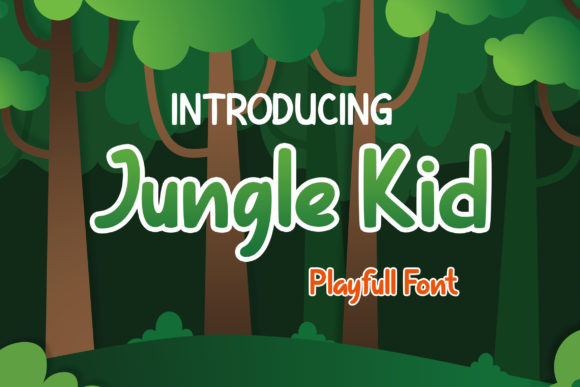
Welcome to the world of Jungle Kid Font, a delightful and whimsical display font crafted specifically to add a touch of enchantment to your creative projects. Inspired by the boundless imagination of childhood, Jungle Kid captivates with its playful and friendly demeanor, making it an ideal choice for children-themed designs.
Immerse yourself in a world where fonts come alive, where letters dance and play, creating an atmosphere of pure joy and wonder. Let your imagination run wild as you explore the endless possibilities that Jungle Kid Font offers. Its vibrant and cheerful characters will instantly uplift your designs, bringing a smile to the faces of those who encounter them.
With Jungle Kid, you can create designs that spark creativity and ignite the imagination. Whether it's a playful poster, an enchanting invitation, or an eye-catching logo, this font will transform your words into captivating works of art. Let your imagination soar as you unleash the magic of Jungle Kid, creating designs that leave a lasting impression.